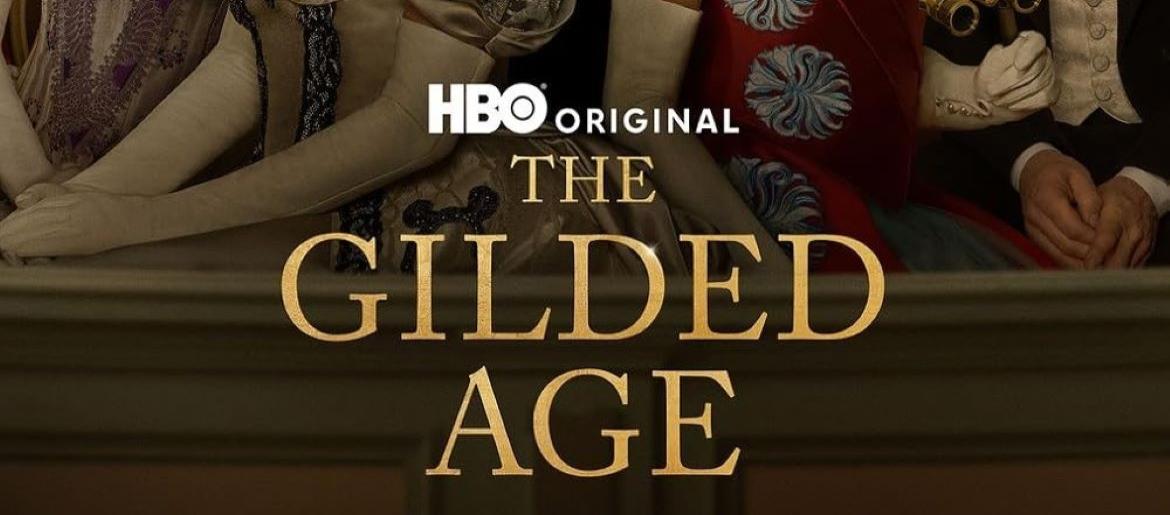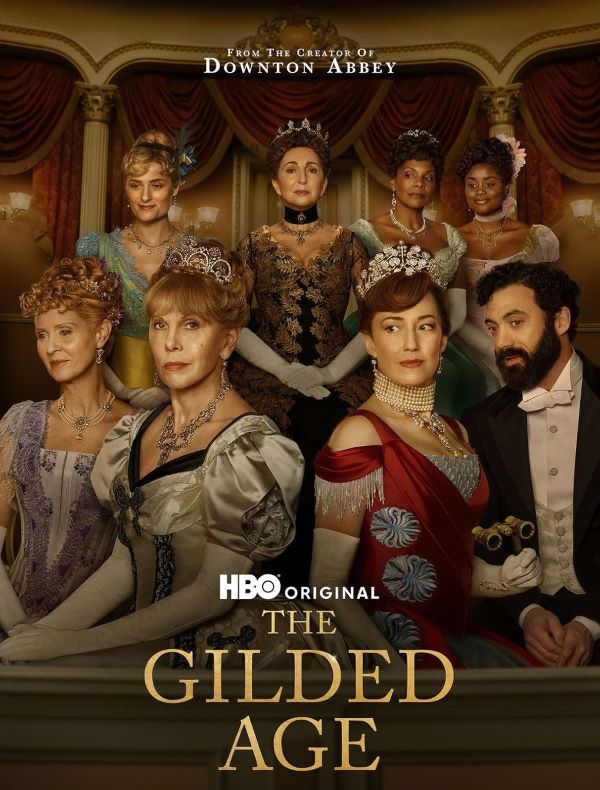
The Gilded Age Font
What Font is The Gilded Age?
The Gilded Age Font exudes timeless sophistication, much like the opulent era it represents. The typography used in the series logo is most likely Caslon Titling Std Regular by Monotype, a commercial font known for its elegant serifs and refined proportions. Its classical design reflects the grandeur and refinement of the late 19th century, making it a perfect fit for historical dramas and luxury branding. Fortunately, there’s also a free similar font available for those who wish to capture the same aristocratic aesthetic.
About The Gilded Age
The Gilded Age (2022) is a historical drama series created by Julian Fellowes, set in 1880s New York City. The show follows the clash between old-money families and the ambitious newcomers seeking social ascent during America’s age of rapid economic growth. With rich storytelling, stunning costumes, and authentic period detail, it paints a vivid picture of wealth, power, and transformation in a changing society.